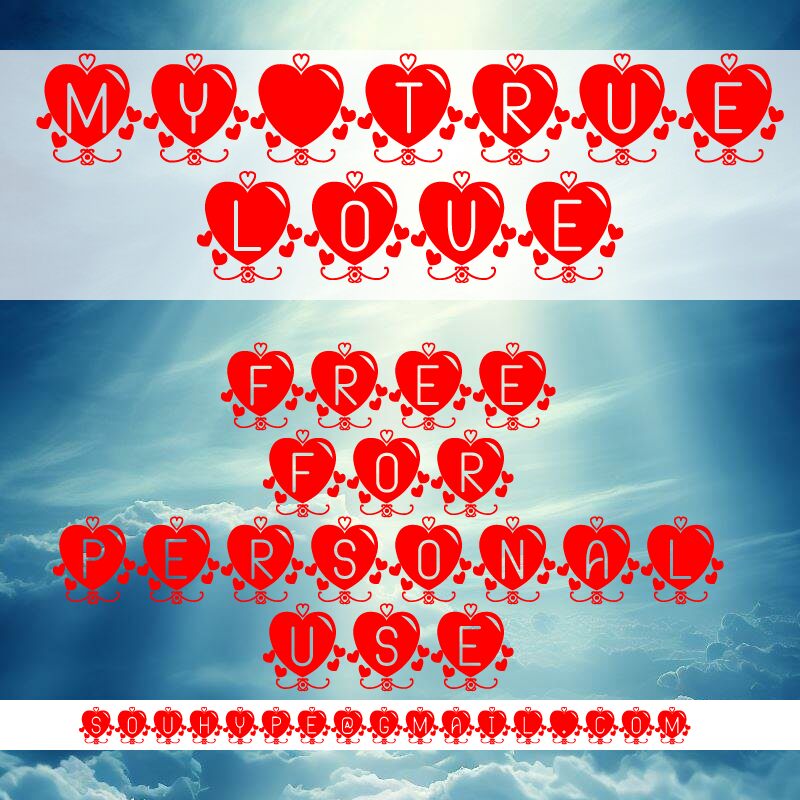
My true love St
My true love St font by Southype blends a futuristic aesthetic with geometric and abstract elements. Its modern and visually striking design makes it particularly decorative and appealing, with a set of playful letter designs each holding an ornamented form to present your texts with style.
From Valentine’s day greeting cards and typography art projects to business cards, packaging designs, book covers, invitations, gaming interfaces, poster designs, logotypes… you’ll find many use opportunities for this free decorative font.